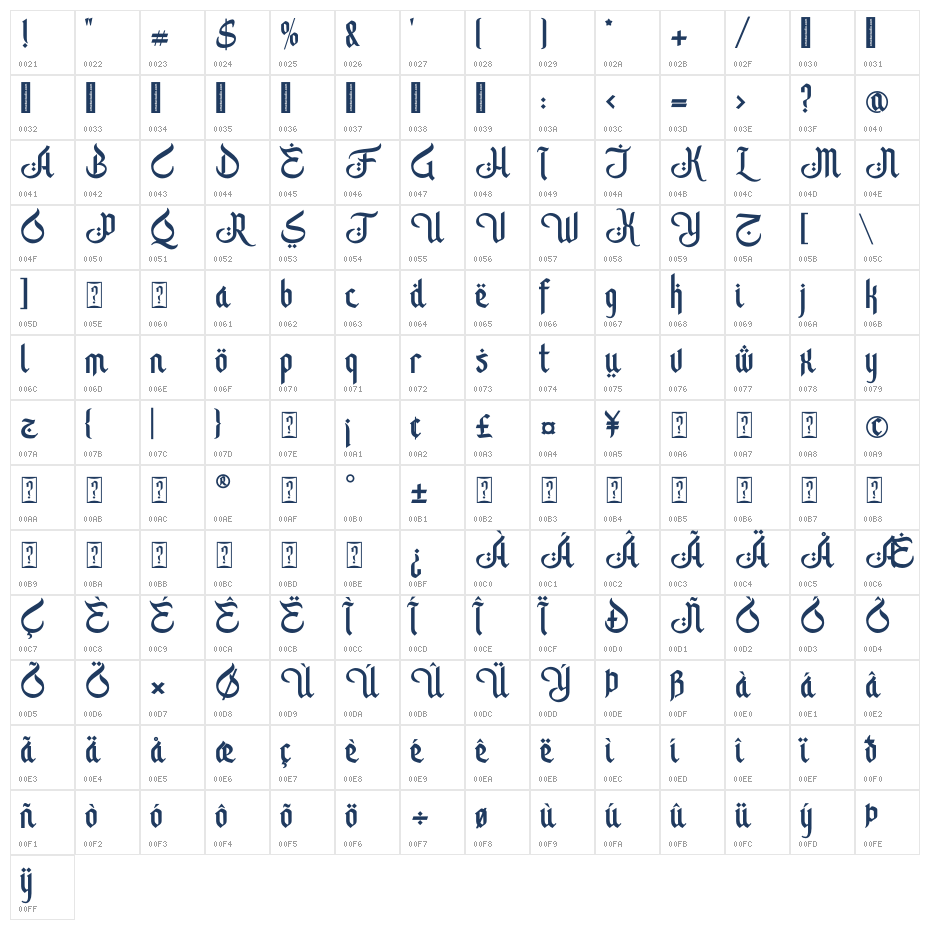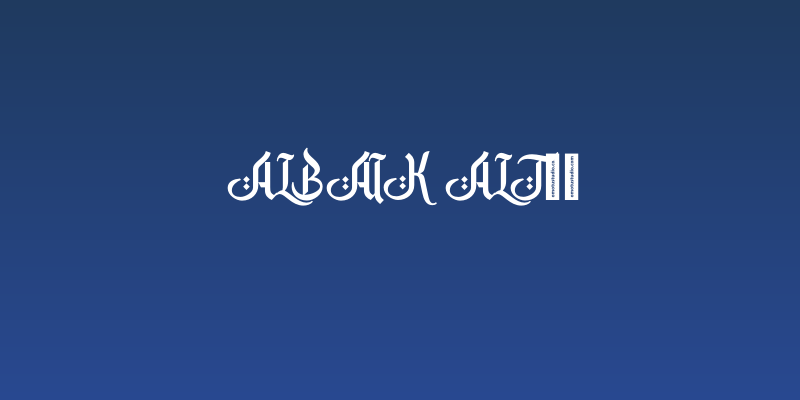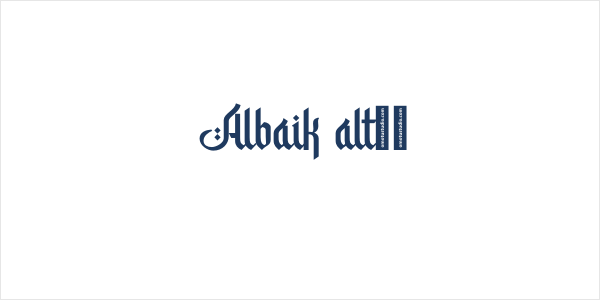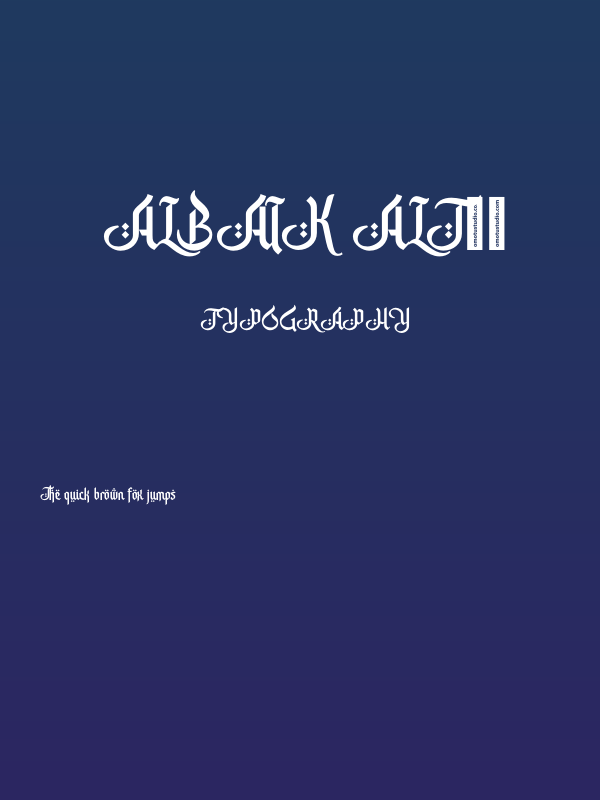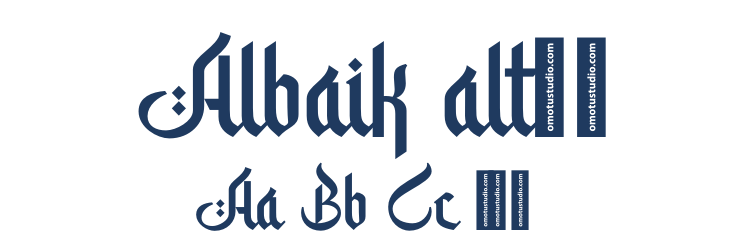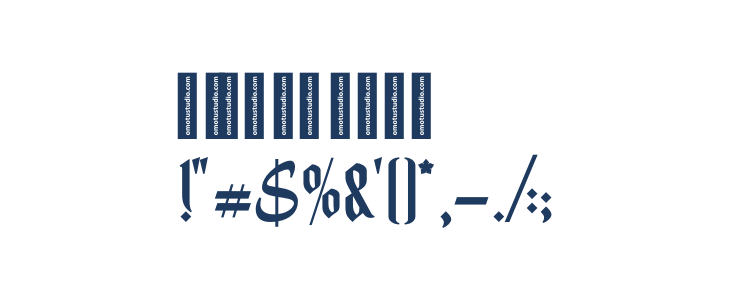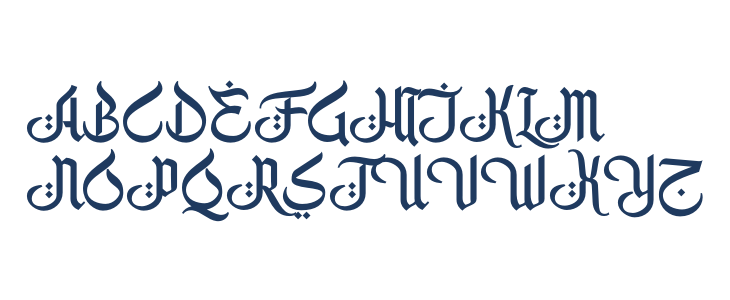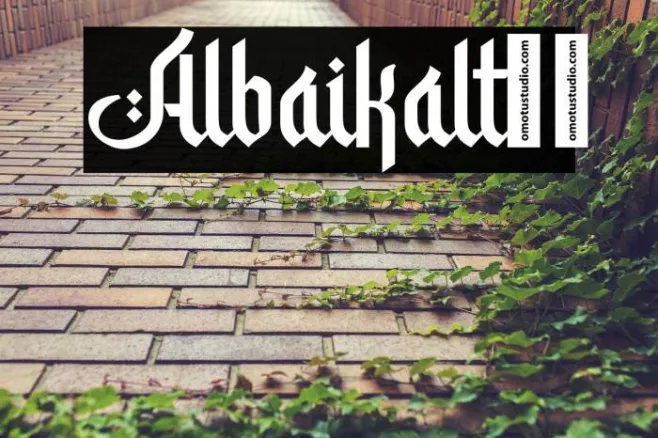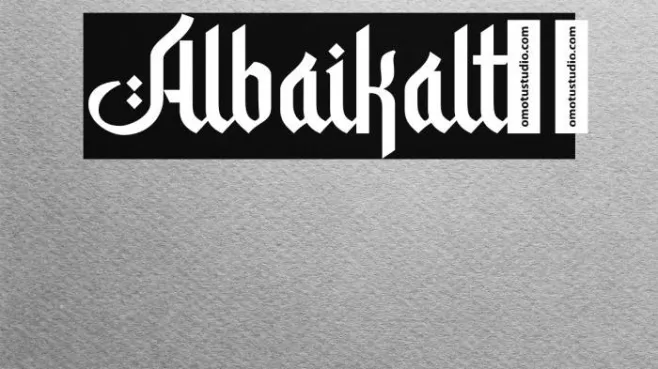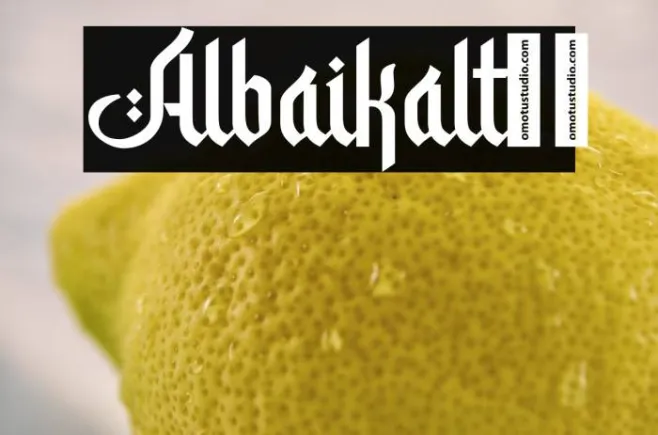
Albaik alt01 Font
Albaik alt01 Description
A decorative, Gothic-style font with elaborate, medieval-inspired letterforms.
| Overall Style | Medieval, Gothic, Decorative |
| Use Case | Headlines, Logos, Decorative text |